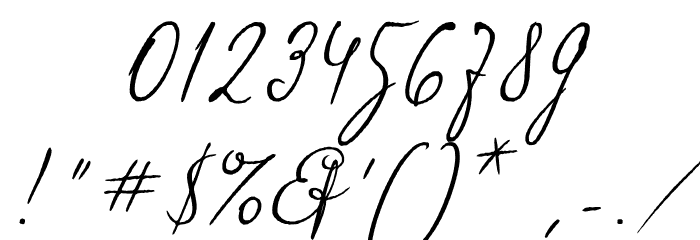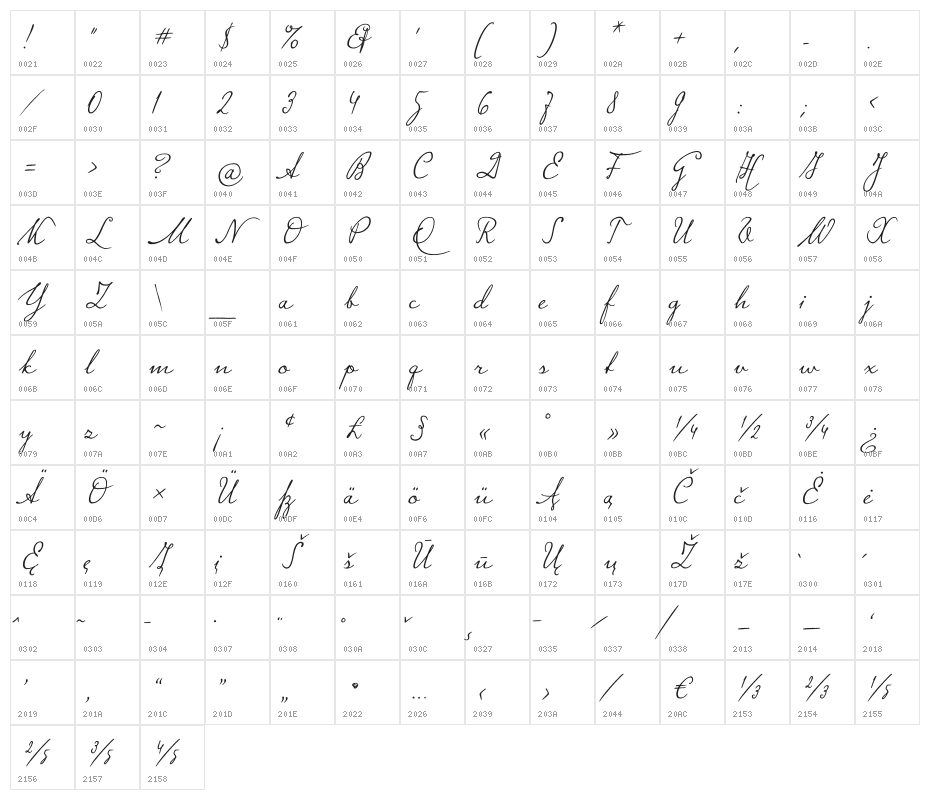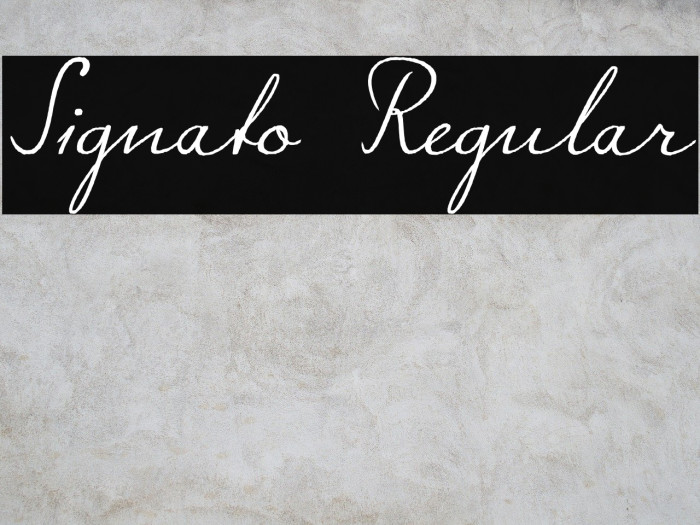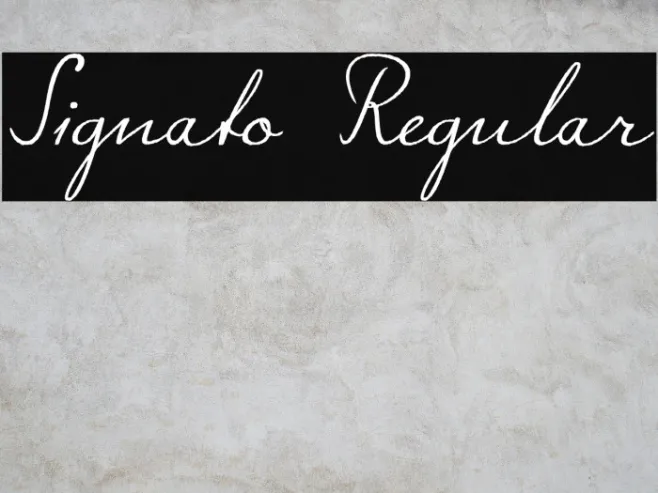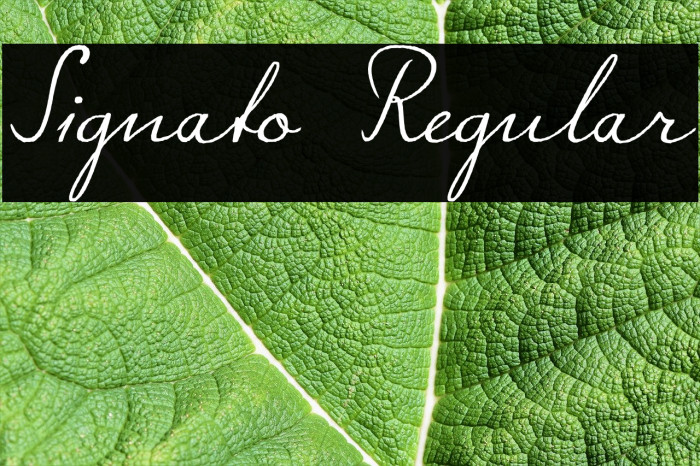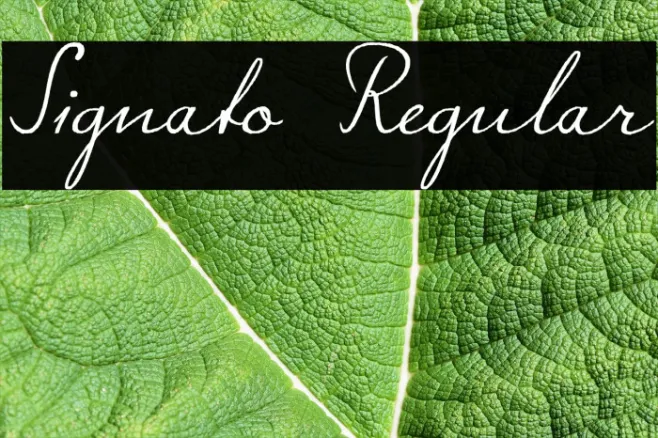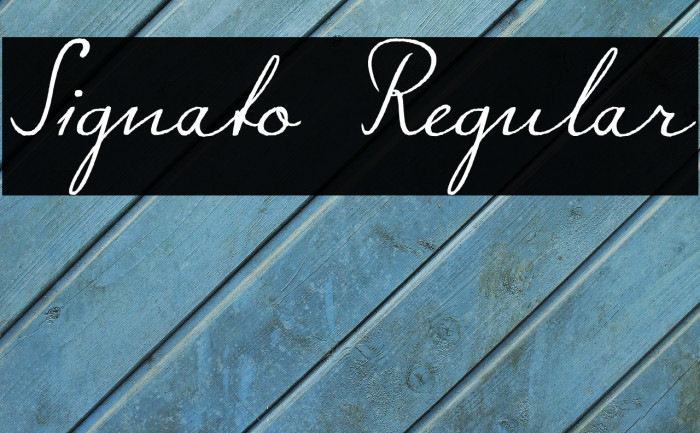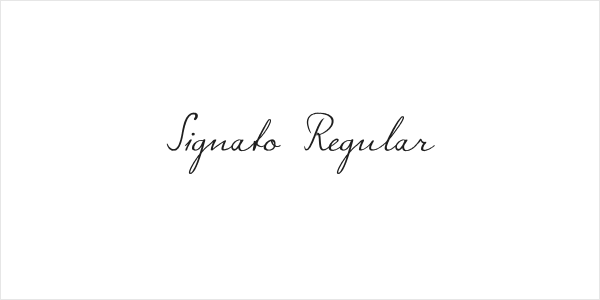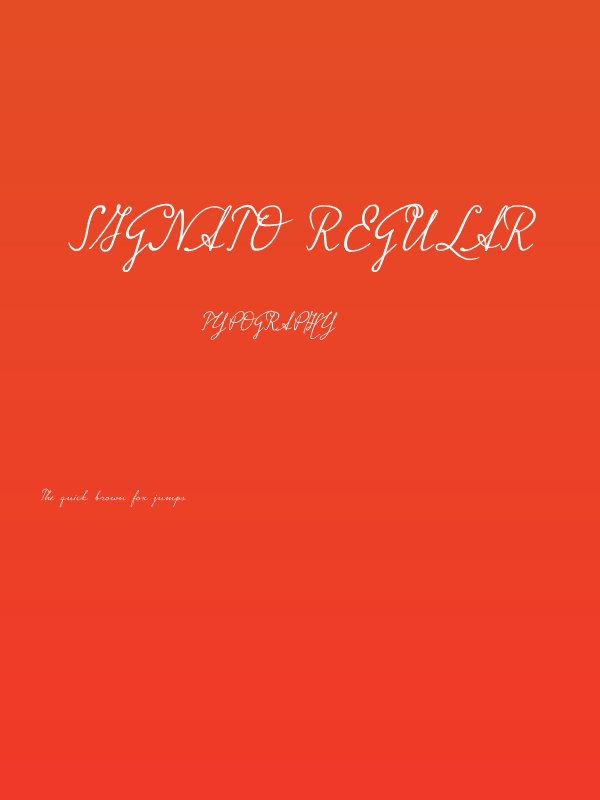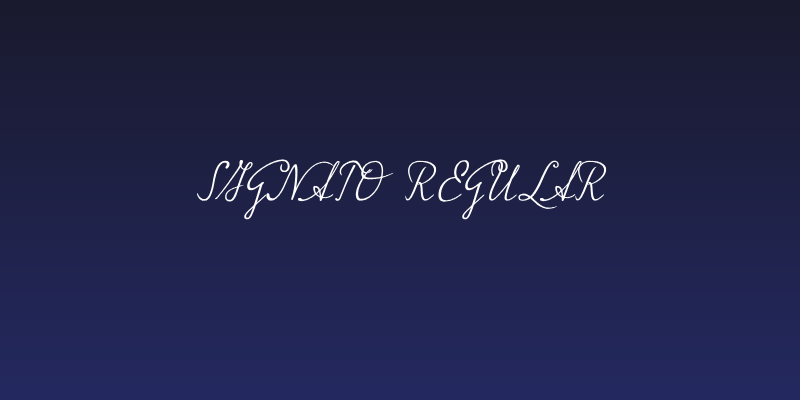
Signato Regular Font
Signato Regular Description
This font exudes elegance and sophistication with its fluid, cursive style. The characters are gracefully connected, mimicking the flow of natural handwriting. Each letter is crafted with a slight slant, enhancing its dynamic appearance. The strokes vary in thickness, adding a touch of refinement and artistic flair. The uppercase letters are bold and prominent, while the lowercase letters maintain a delicate balance, creating a harmonious visual appeal. The numerals and special characters are designed to complement the overall aesthetic, ensuring consistency throughout. This font is ideal for projects that require a personal and elegant touch.
| Overall Style | Elegant, Artistic |